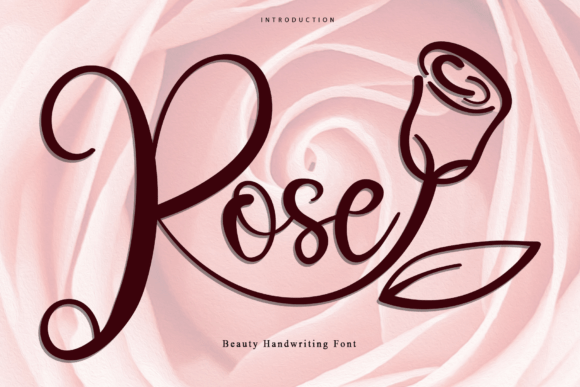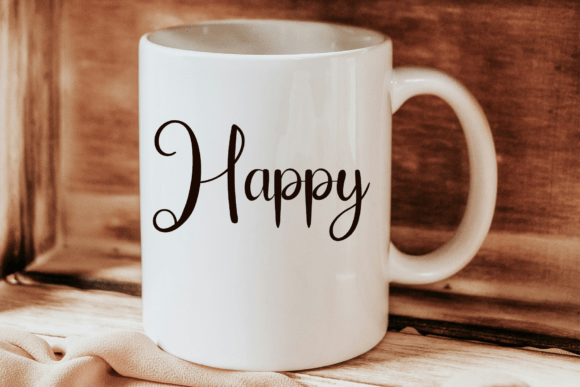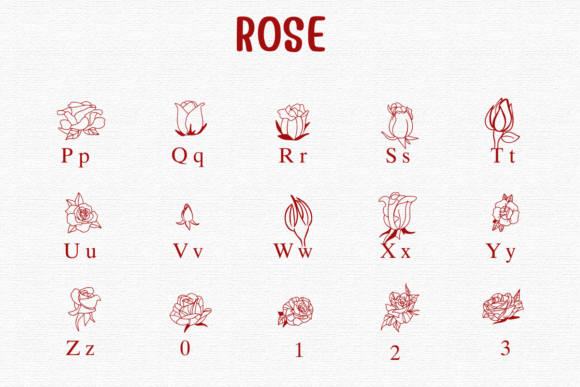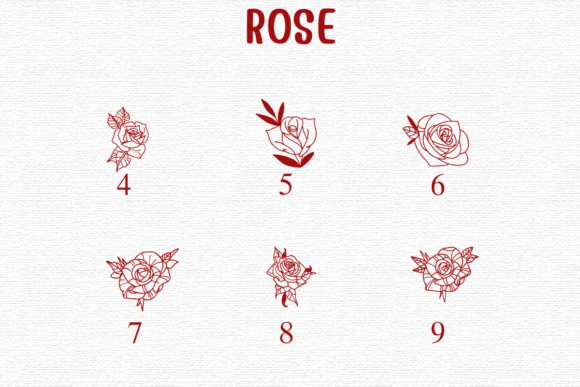
Rose Font
About the Rose Font
Discover the charm of Rose Font. This font is a perfect blend of modern aesthetics and classic appeal. Rose Dingbats is a beautiful collection of hand-drawn rose illustrations, perfect for adding a touch of elegance to any design. Whether you’re creating wedding invitations, floral-themed branding, or decorative patterns, these delicate rose designs offer endless possibilities. Enhance your projects with timeless floral charm!
Rose Font’s delicate nature makes it ideal for projects requiring a touch of elegance, such as wedding stationery, branding for beauty or floral businesses, and packaging for high-end products. It excels in headlines, short text blocks, and decorative elements. However, its intricate detail makes it unsuitable for body text or UI elements where readability is paramount.
This font pairs well with clean sans-serif fonts like Lato or Open Sans for a balanced contrast, or with a classic serif like Garamond for a more traditional feel. For a touch of modernity, consider pairing it with a geometric sans-serif like Montserrat.
Rose Font projects an overall personality of refined elegance and gentle charm. Its hand-drawn quality adds a personal touch, making it perfect for brands that wish to convey a sense of handcrafted quality and artistic sensibility.